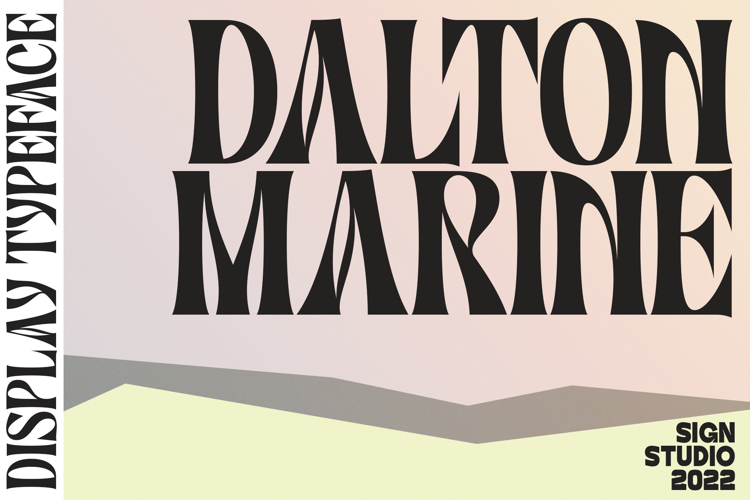
Dalton Marine Font
About Dalton Marine Font
Dalton Marine is an absolutely elegant serif font designed for display. This typeface includes stylistic alternates set that allow you to change multiple characters in one click. It will elevate a wide range of crafting ideas, from cards to branding, labels, and more.